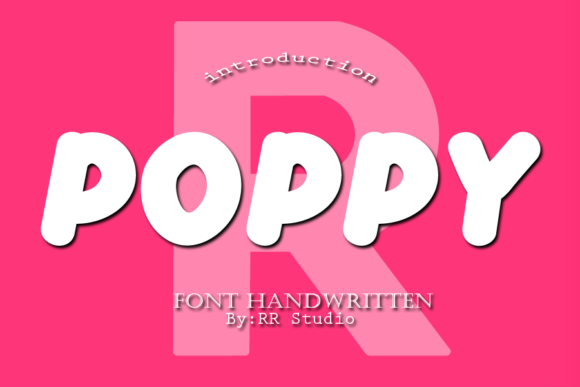
Introducing Poppy Font, the display font that adds a splash of joy and romance to your creative projects. With its sweet and chunky letters, Poppy will make your words dance off the page, whether you're creating Christmas cards, wedding invitations, or thank-you notes.
Picture this: a Christmas card adorned with Poppy's playful script, spreading warmth and cheer to your loved ones. The chubby letters, reminiscent of freshly fallen snow, will make your message feel like a warm hug. Or imagine a wedding invitation graced with Poppy's elegant curves, inviting guests to a celebration filled with love and laughter.
Poppy is more than just a font; it's an expression of your creativity, a way to make your words come alive. Use it to design greeting cards that convey heartfelt messages, logos that exude professionalism, or business cards that leave a lasting impression. With Poppy, your designs will radiate charm and sophistication.
But Poppy's versatility doesn't end there. Its playful nature shines through in quotes and posters, adding a touch of whimsy to your living space. Transform your social media posts into eye-catching visuals with Poppy's unique style, capturing the attention of your followers.
So, embrace the magic of Poppy Font and let your creativity soar. Let its sweet and chunky letters carry your message to the world, spreading joy, love, and inspiration wherever they go!